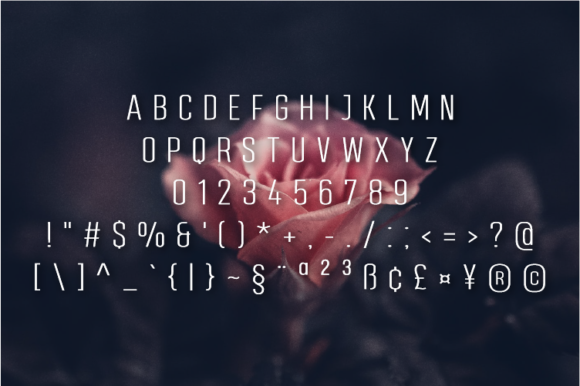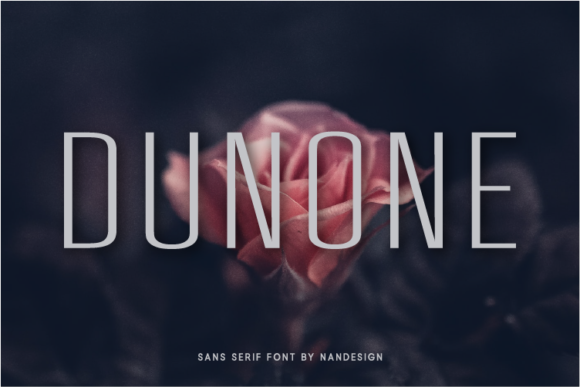
Dunone Font: Elevate Your Designs with Elegance and Sophistication
In the world of typography, fonts play a crucial role in conveying the message and tone of a design. Among the numerous font styles available, sans serif fonts have gained immense popularity for their clean and modern appeal. One such font that has been making waves in the design community is the Dunone Font. In this article, we’ll delve into the features, benefits, and uses of Dunone, and explore why it’s a must-have for designers and crafters.
What is Dunone Font?
Dunone is a distinct and elegant sans serif font that has been crafted to provide a clean and sophisticated look to various designs. With its undeniably clean feel and a neat and beautiful arrangement of letters, this typeface is perfect for both formal and non-formal designs. Whether you’re working on a branding project, a website, or a print material, Dunone is sure to make a lasting impression.
Key Features of Dunone Font
- Clean and Elegant Design: Dunone boasts a sleek and modern design that exudes elegance and sophistication. Its clean lines and curves make it perfect for designs that require a professional look.
- Sans Serif Style: As a sans serif font, Dunone lacks the decorative flourishes found in serif fonts, making it ideal for digital and print designs where clarity is paramount.
- Neat Letter Arrangement: The font features a beautiful arrangement of letters, ensuring that words and sentences flow smoothly and are easy to read.
- Versatility: Dunone is a versatile font that can be used in a wide range of designs, from formal documents to creative projects.
Benefits of Using Dunone Font
So, why should you choose Dunone for your next design project? Here are some benefits that make it an excellent choice:
- Enhances Readability: Dunone’s clean design and neat letter arrangement make it easy to read, even at small font sizes.
- Professional Look: The font’s elegant design gives your designs a professional and polished look, perfect for businesses and brands.
- Time-Saving: With Dunone, you can create stunning designs quickly, thanks to its versatility and ease of use.
- Unique Style: Dunone’s distinct style sets it apart from other sans serif fonts, ensuring your designs stand out from the crowd.
Use Cases for Dunone Font
Dunone is a versatile font that can be used in various design projects, including:
- Branding and Logo Design: Create a lasting impression with Dunone’s elegant design, perfect for logos, business cards, and letterheads.
- Web Design: Use Dunone to create clean and modern website designs that are easy to read and navigate.
- Print Materials: Dunone is ideal for print designs, such as brochures, flyers, and posters, where clarity and readability are crucial.
- Digital Marketing: Use Dunone in your digital marketing materials, such as social media graphics and email newsletters, to create a professional and cohesive look.
In conclusion, Dunone Font is an exceptional sans serif font that offers a unique blend of elegance, sophistication, and versatility. Its clean design, neat letter arrangement, and readability make it an excellent choice for designers and crafters. Whether you’re working on a formal or non-formal design project, Dunone is sure to elevate your designs and make a lasting impression.